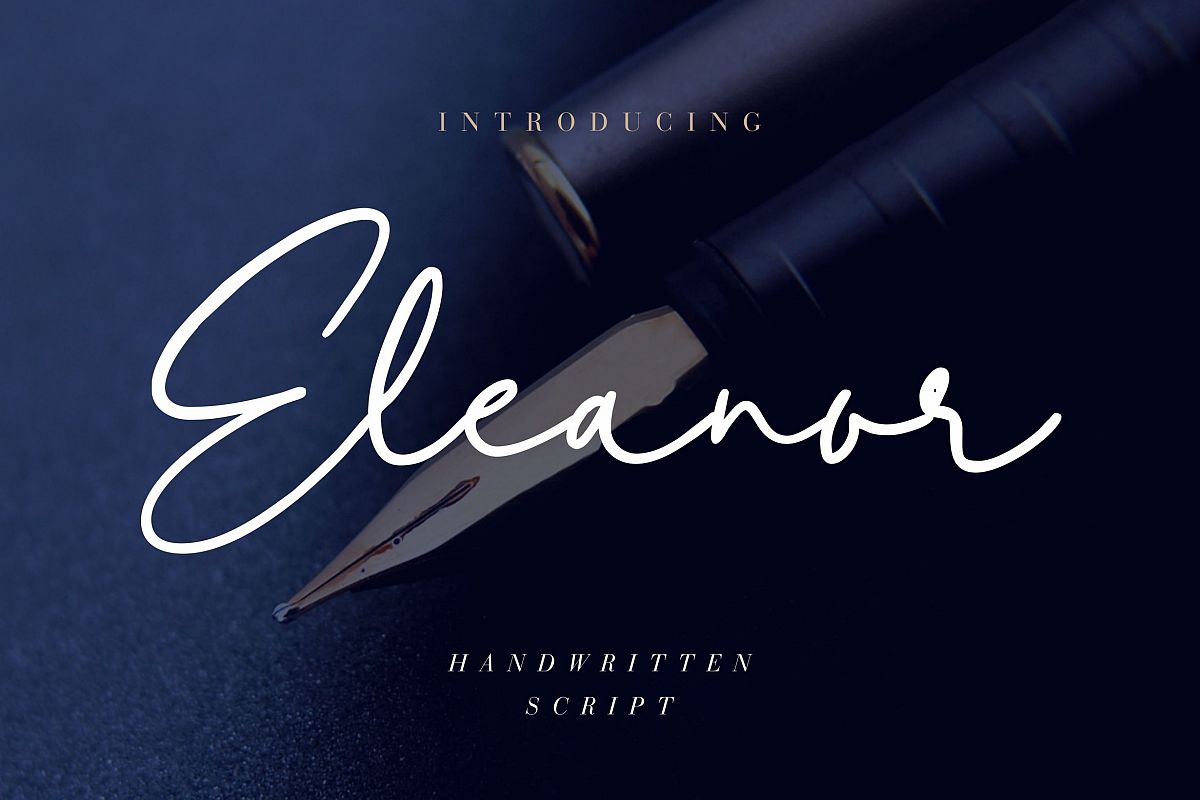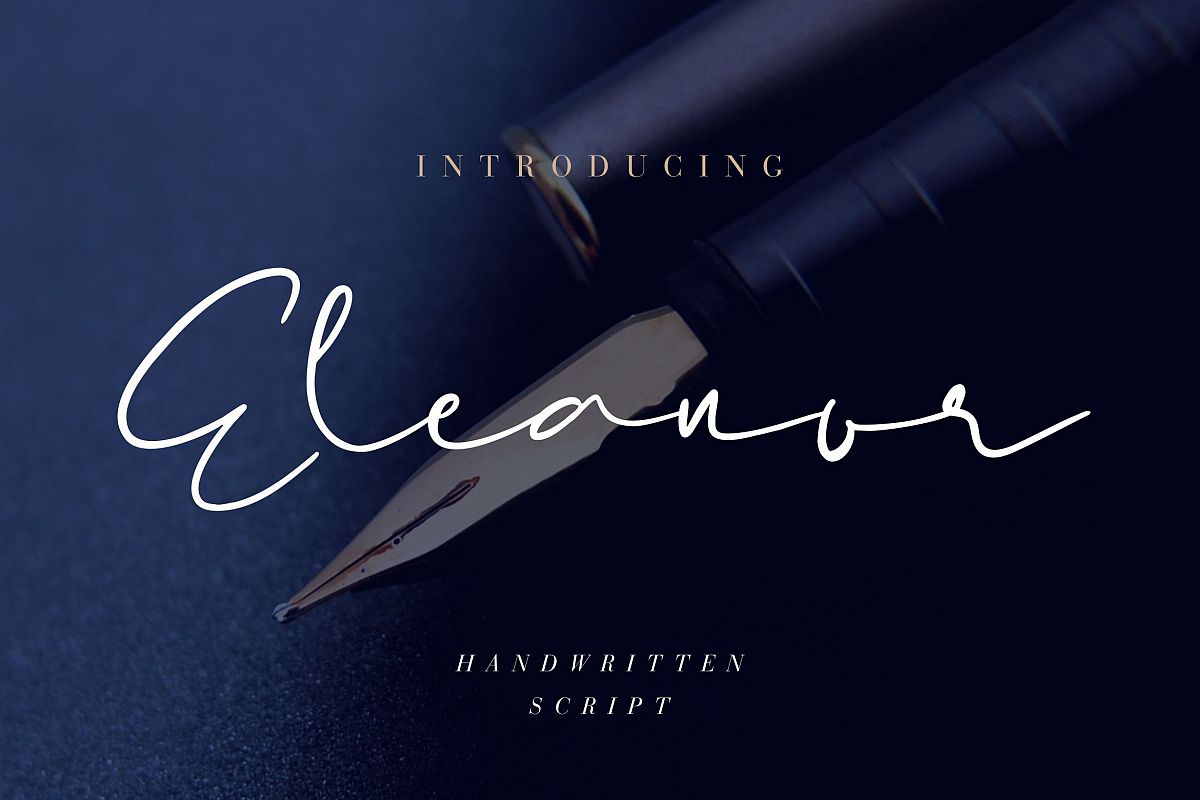
Introducing " Modern Script "
Modern Script - A Handwritten Cursive Font
You Can Mix And Match for Your Awesome Project
This fonts is ideal for crafting, branding and decorate your any project. This fonts are perfect for wedding invitation or your blog. Also with their help, you can create a logo or beautiful frame for your home. Or just use for your business, book covers, stationery, marketing, magazines and more.